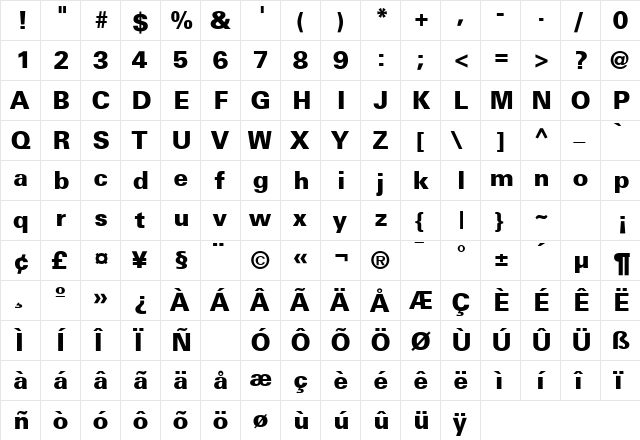
Nova Black SSi Extra Bold
Design Context for Nova Black SSi Typeface
Nova Black SSi is a composed and adaptable typeface that performs quietly and consistently across a wide range of design contexts. The heavy weight commands attention and anchors typographic hierarchies.